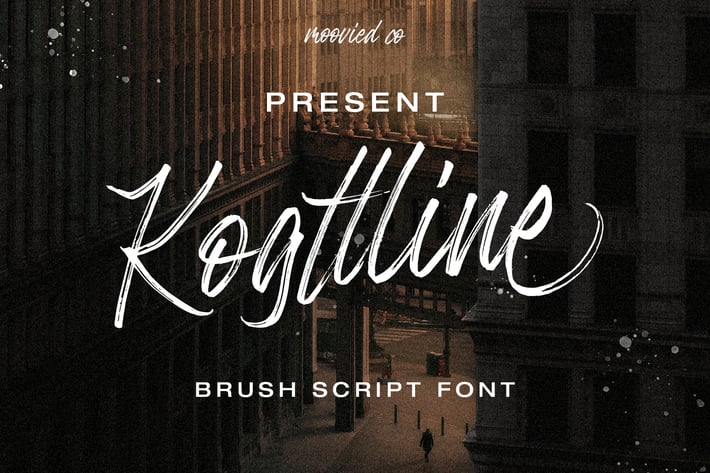
Kogttline Brush Font
Kogttline Brush Font is a modern signature, It is perfect for blogging, social media, branding, product packaging, wedding invitations, branding, headlines, signage, labels, signature, book covers, posters, quotes and more.
Basic Latin A-Z and a-z,
Alternates a-z, Numbers, Ligature